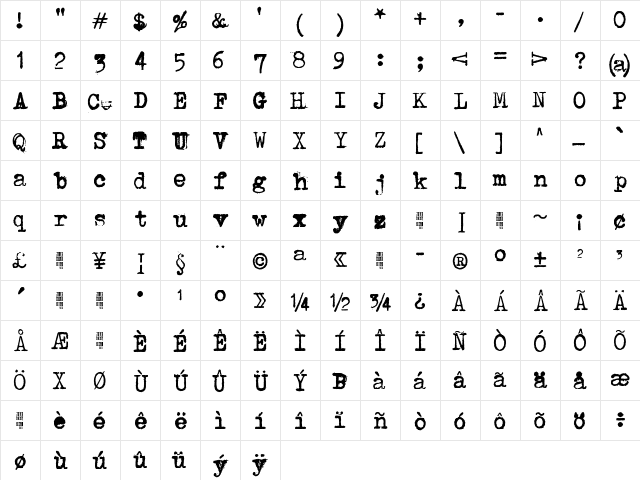
Avojaloin Regular
Design Context for Avojaloin Typeface
Avojaloin is a composed and adaptable typeface that performs quietly and consistently across a wide range of design contexts.